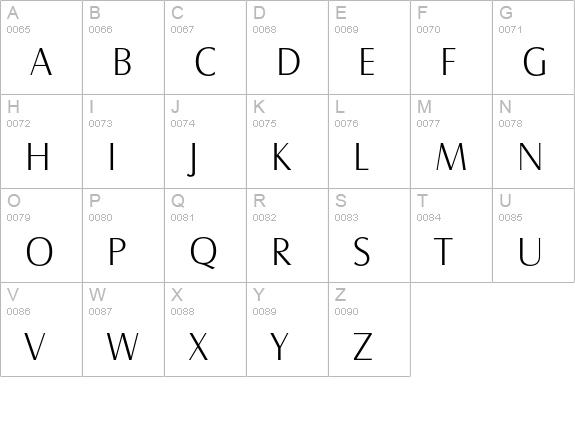
Castle T Light Font Details
Castle T Light is a refined, elegant variant in the Castle typeface family \xE2\x80\x94 well suited to elegant body text, refined sub-headings, and luxury branding.
Castle T Light font is a classic and elegant typeface that exudes sophistication and charm. With its delicate serifs and graceful letterforms, this font is perfect for adding a touch of refinement to any design project. Whether you're creating invitations, branding materials, or editorial layouts, Castle T Light font will bring a sense of timeless beauty to your work. The best part? Castle T Light font is available for free download at FontsMarket.com. Now you can enjoy the beauty and versatility of this stunning font without breaking the bank. Don't miss out on the opportunity to elevate your designs with the enchanting Castle T Light font - download it today and let your creativity shine!